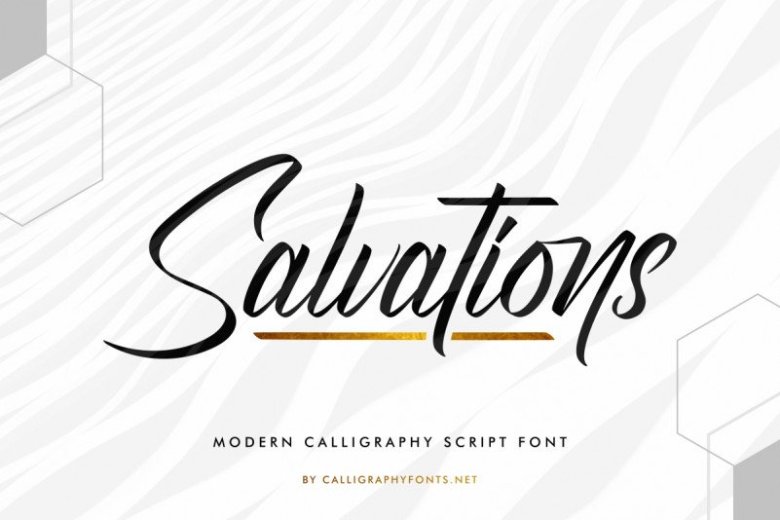
Salvations Font
Salvations Calligraphy Font
Salvations Calligraphy Font is a modern calligraphy script font. The style of this font are casual, modern, elegant, luxury and sophisticated brush font.